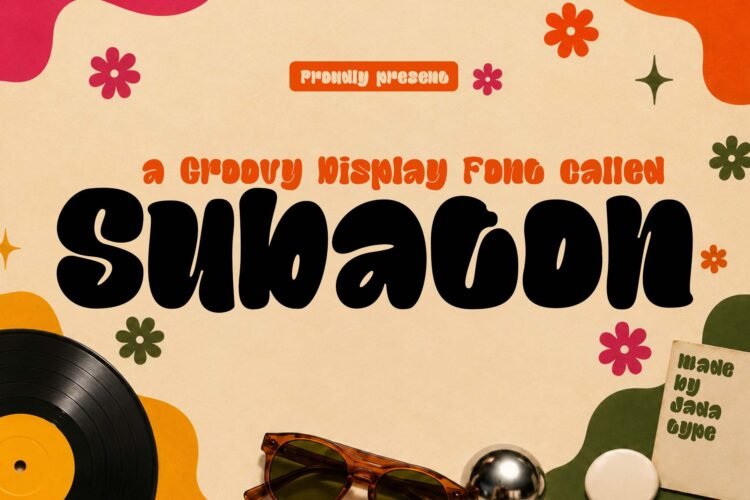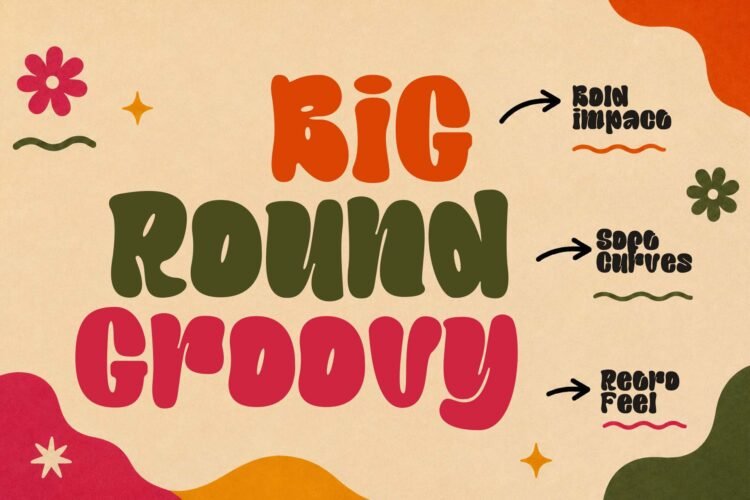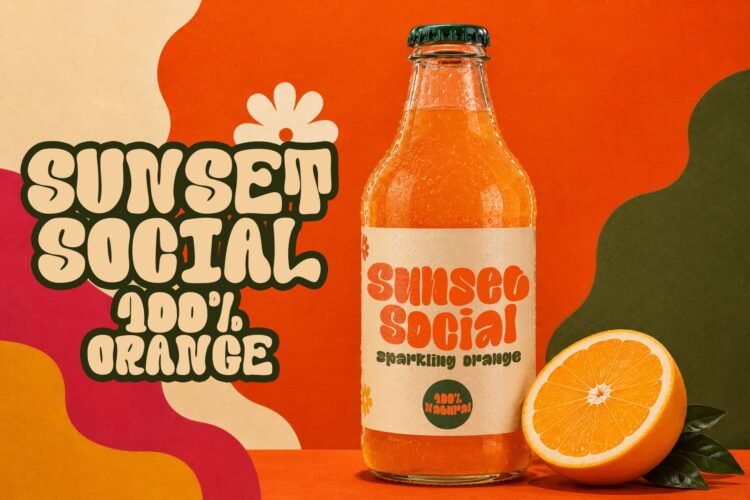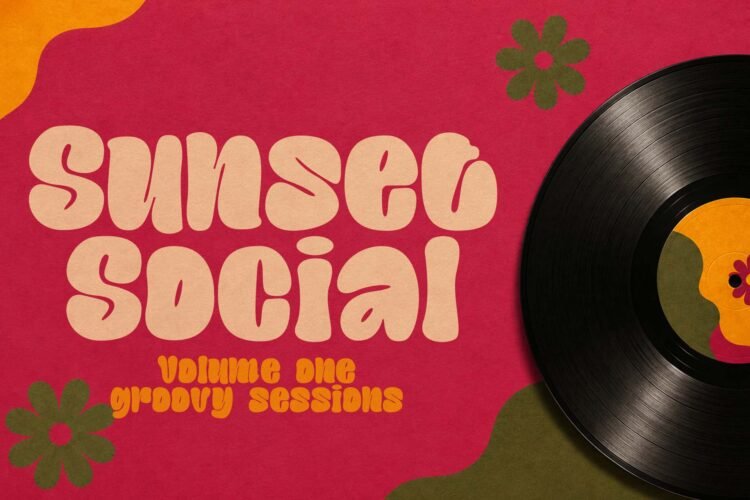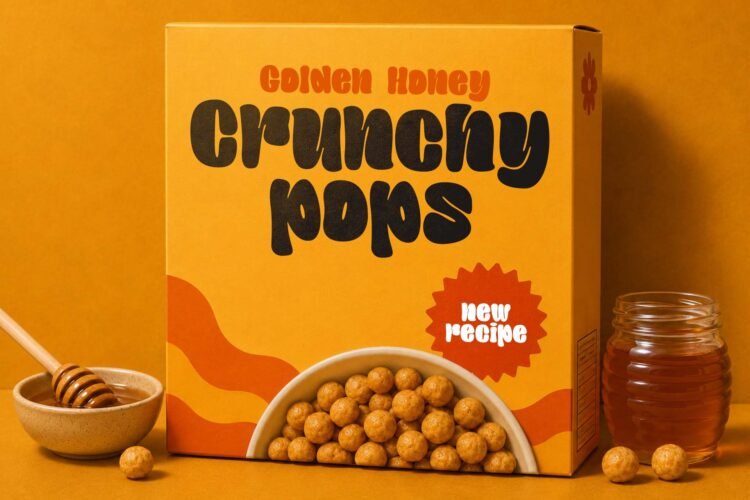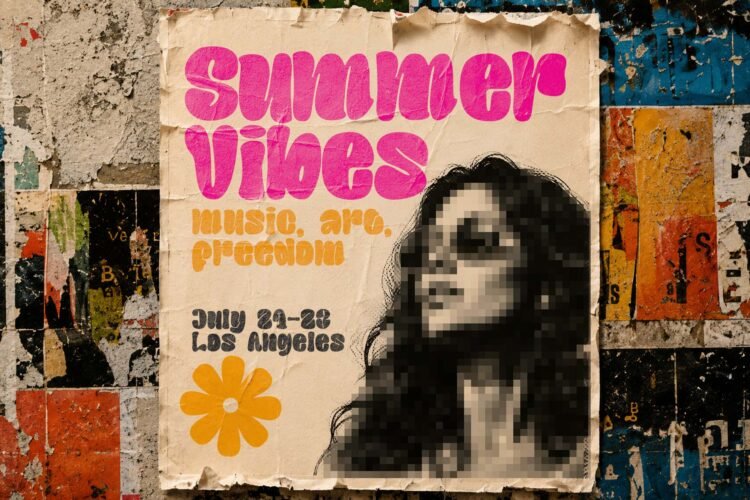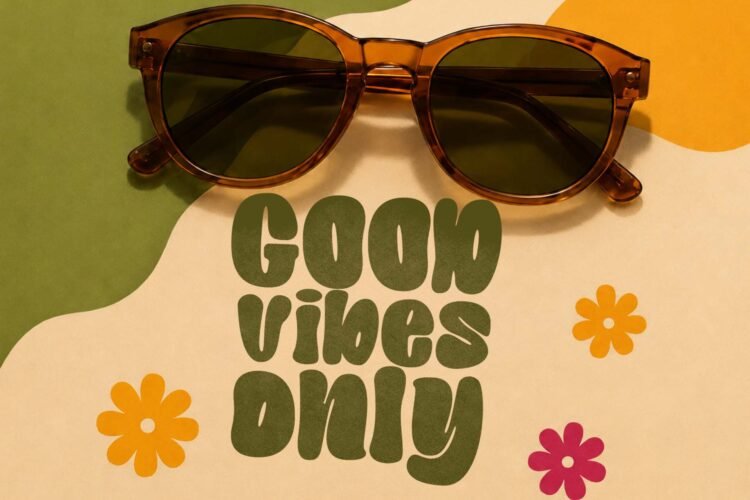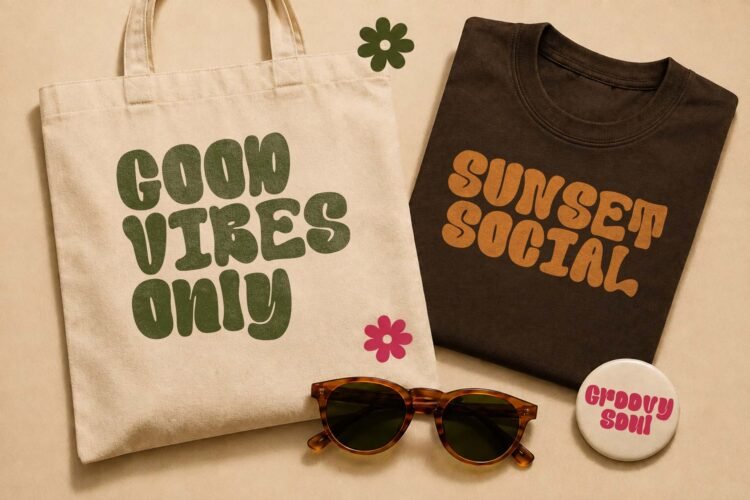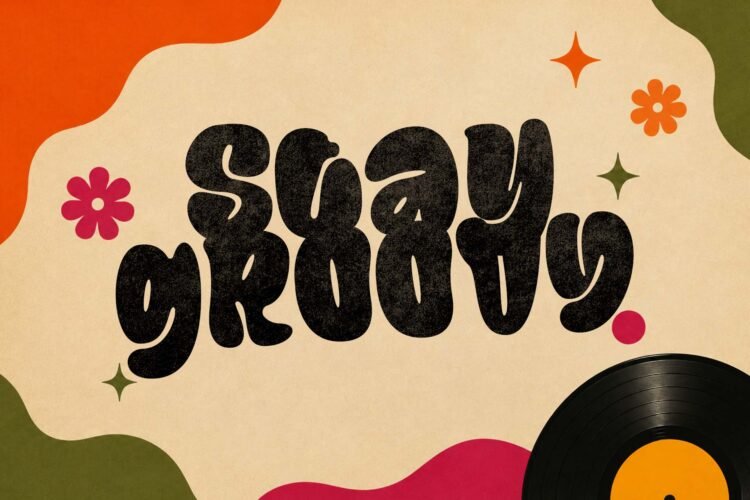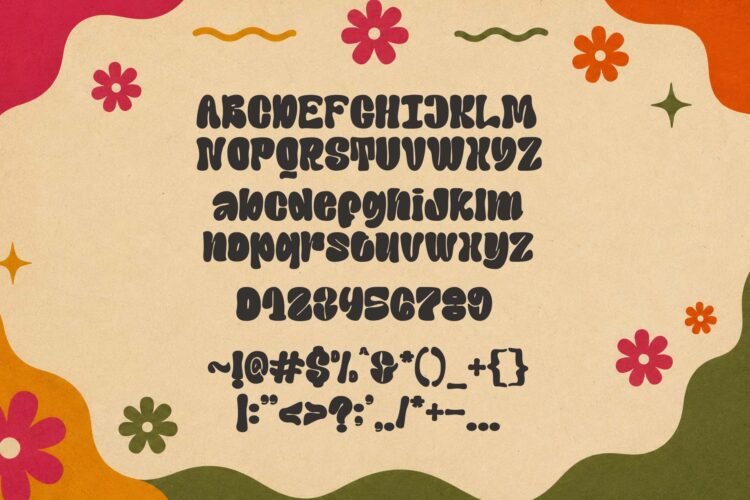
Subaton is a playful retro display font with bold, rounded letterforms and an energetic hand-drawn character. Its organic shapes and groovy personality give it a cheerful vintage feel, making it especially effective for eye-catching headlines and designs that need a youthful, nostalgic touch.
Perfect for branding, logo design, posters, book covers, social media graphics, packaging, event graphics, children’s projects, website headers, and other expressive display applications. The font contains standard English letters, numbers, punctuation, and accented characters for multilingual use. Santup includes one Regular style and was designed by Jada Akbal and published by Jadatype.
• Bold, rounded, groovy display letterforms